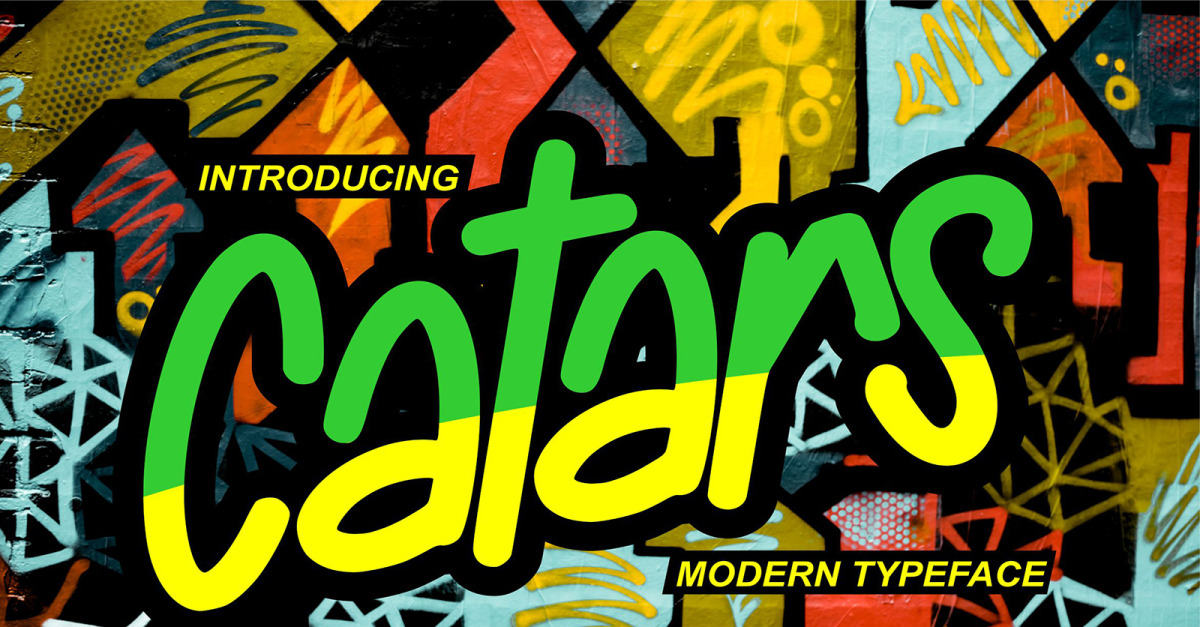
Catars | Modern Typeface Font
**Catars | Modern Typeface** with a calligraphy style, So beautiful on invitation like greeting cards, branding materials, business cards, quotes, posters, and more!